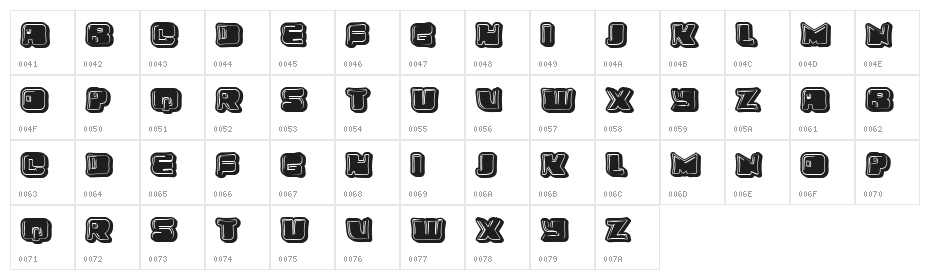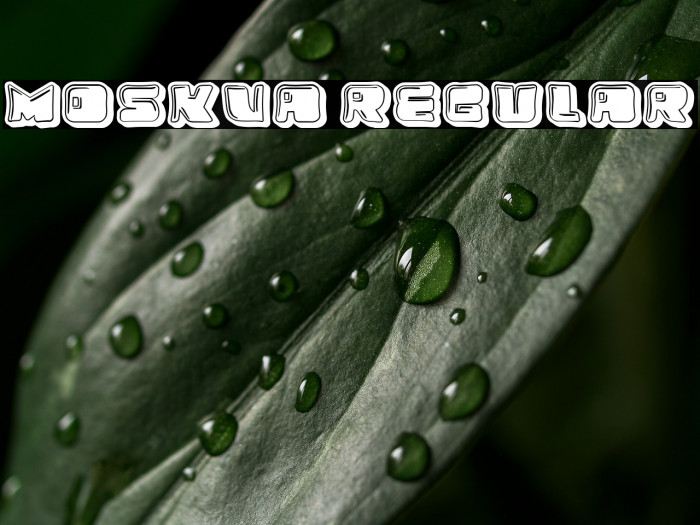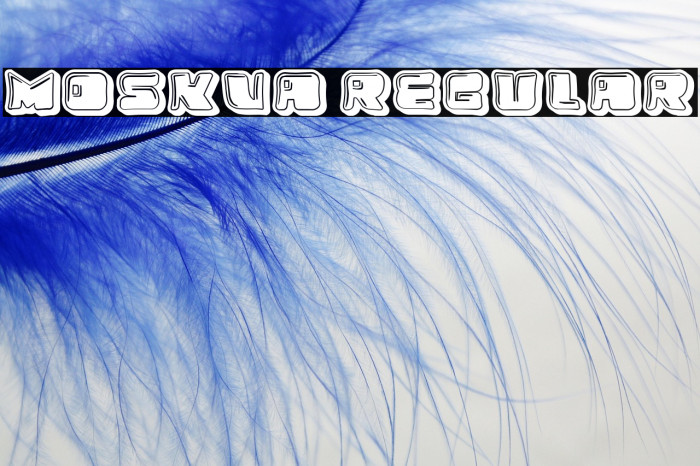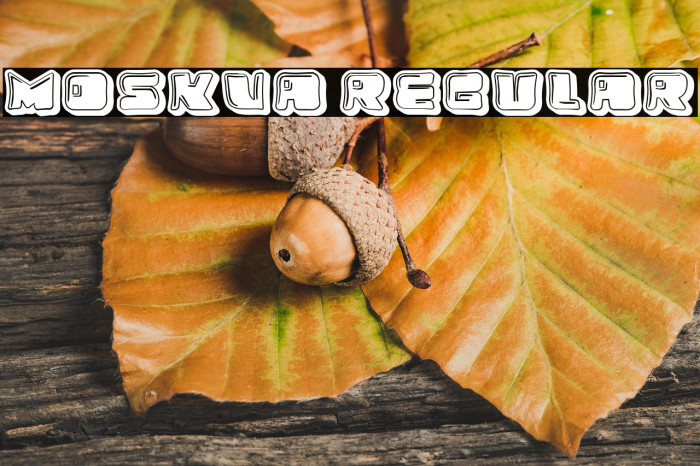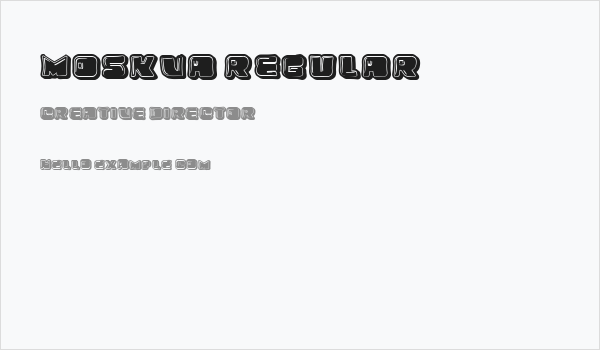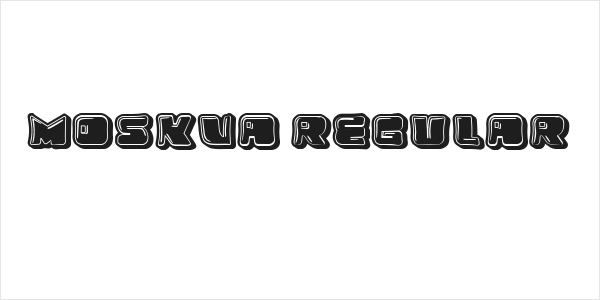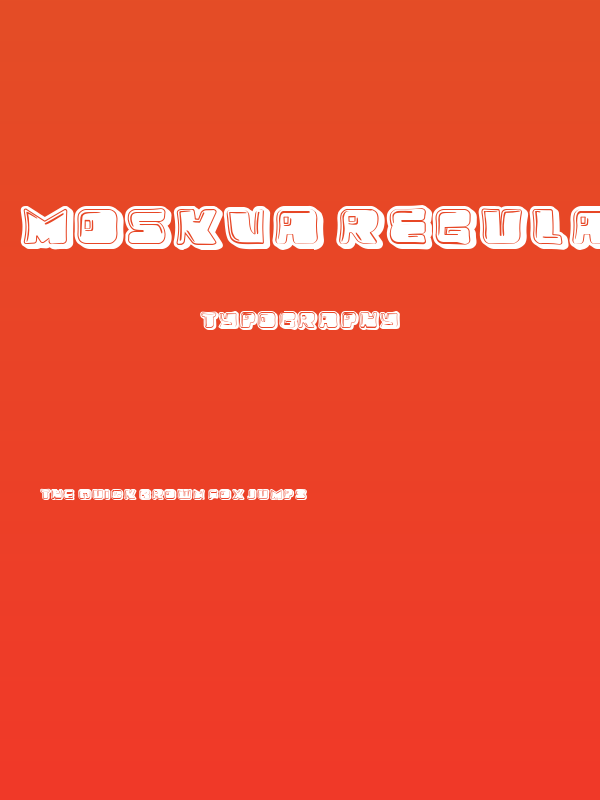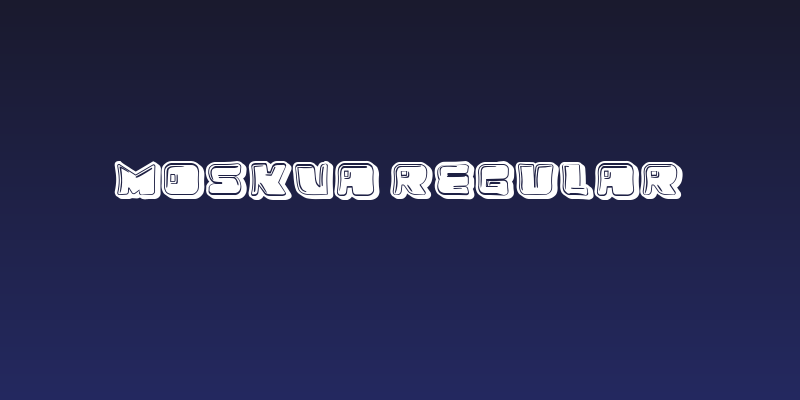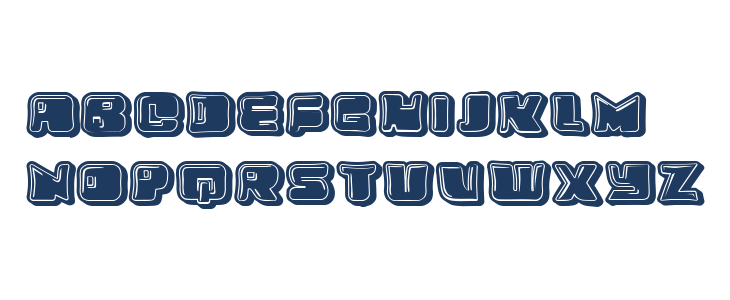
Moskva Regular Font
Moskva Regular Description
This font features a bold, three-dimensional appearance with a distinct outline that gives each character a block-like, embossed look. The letters are uniformly wide, creating a sense of stability and strength. The style is playful yet robust, making it suitable for eye-catching designs. The uppercase letters are consistent in height and width, while the lowercase letters maintain a similar structure, ensuring readability. The numbers and special characters follow the same design principles, providing a cohesive look across all elements.